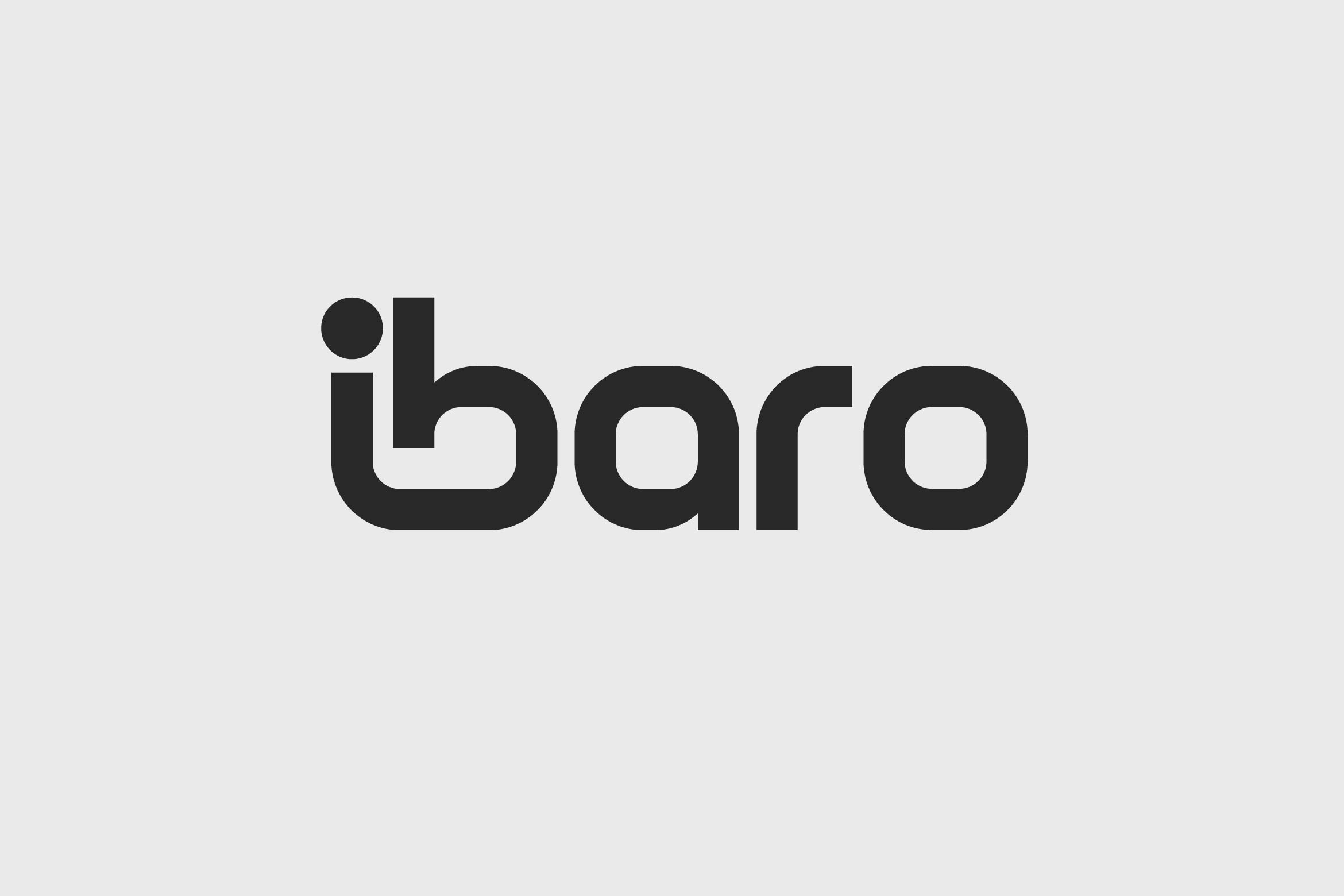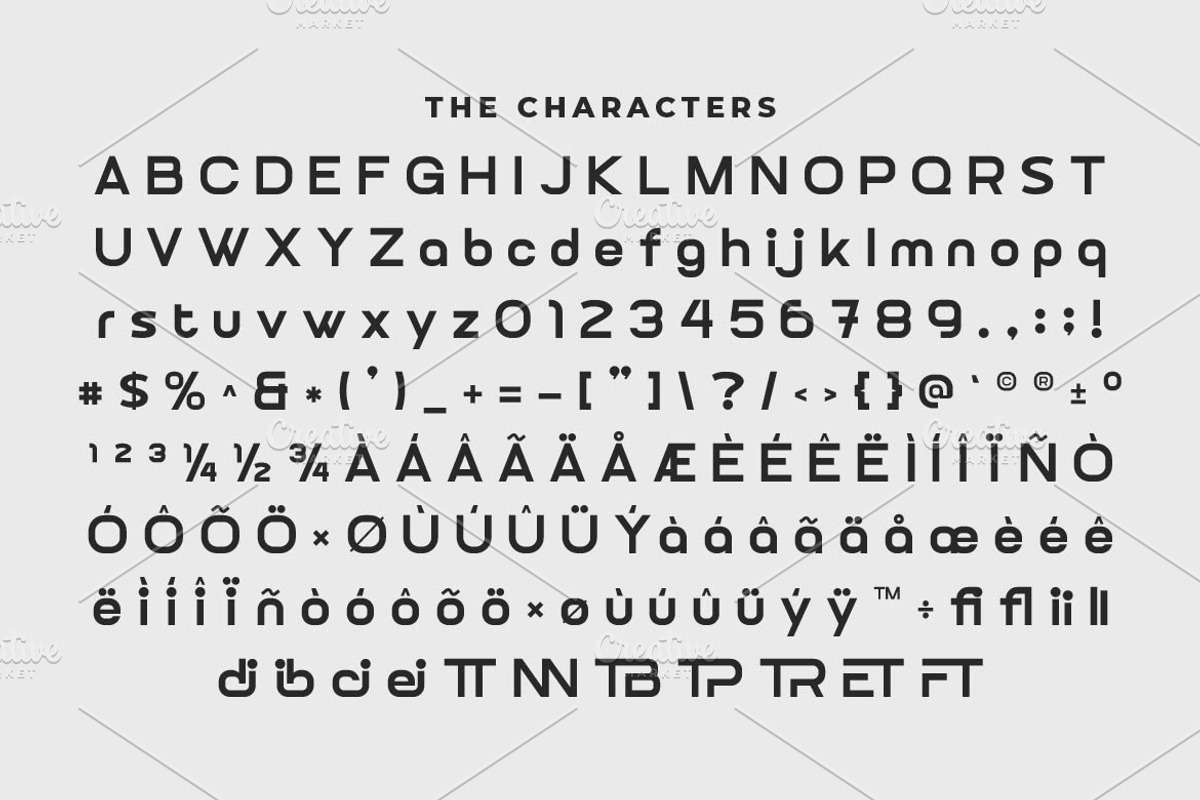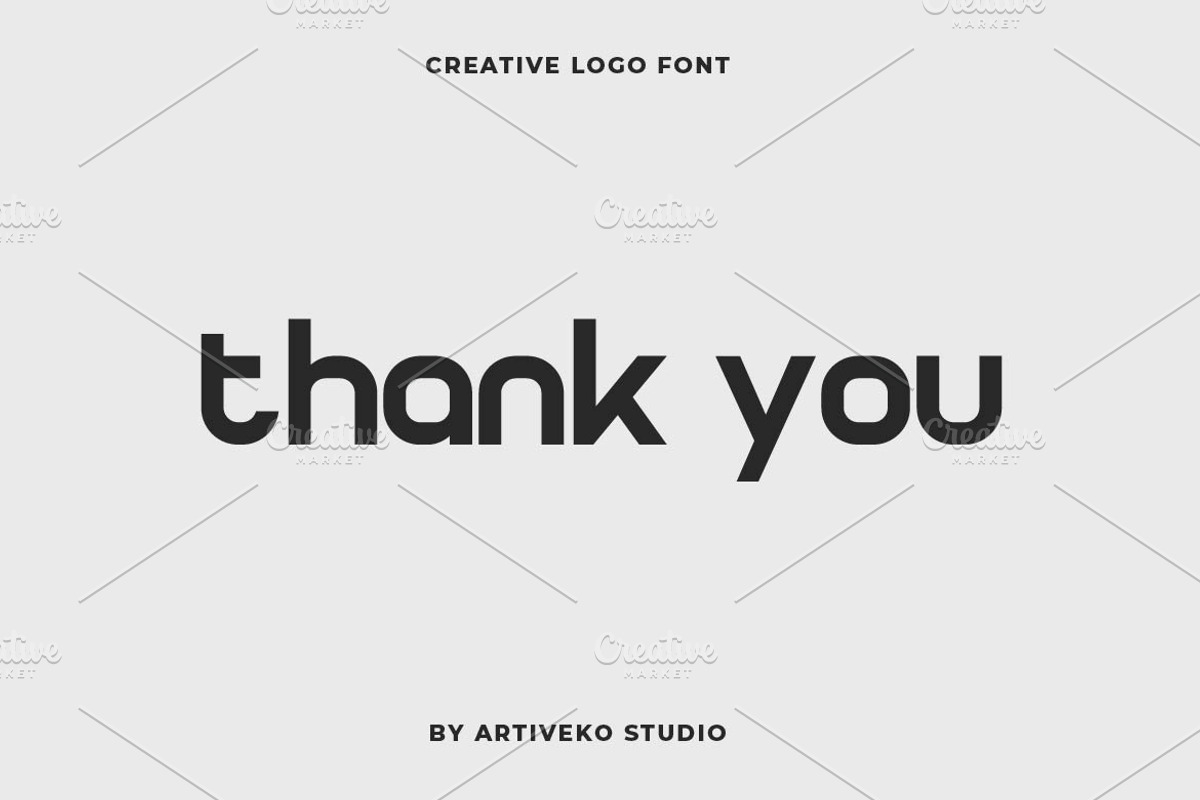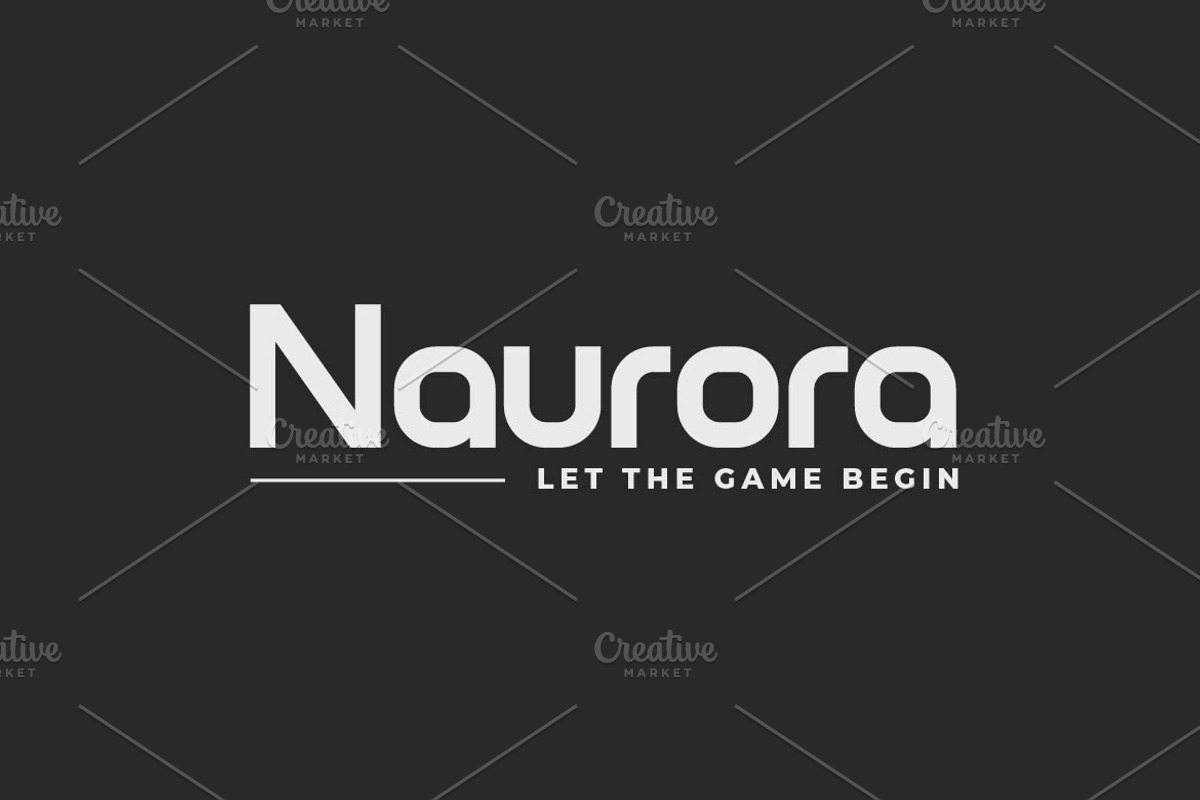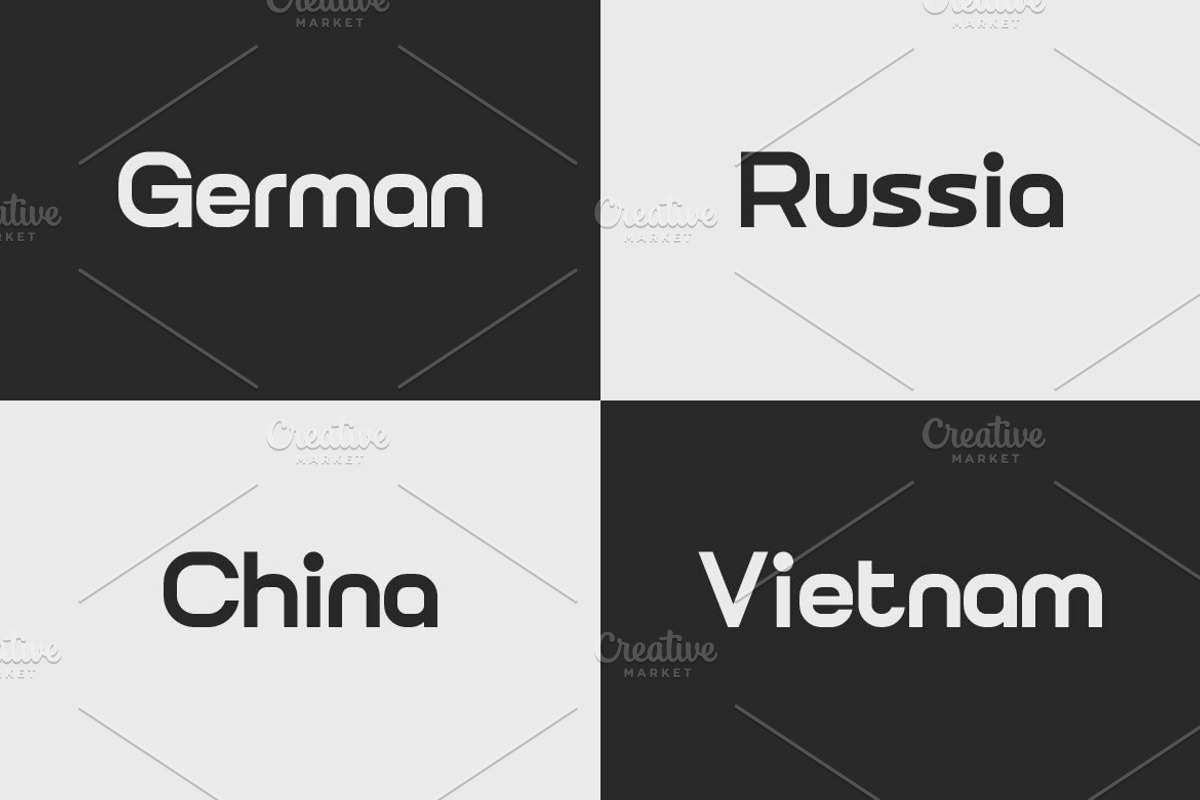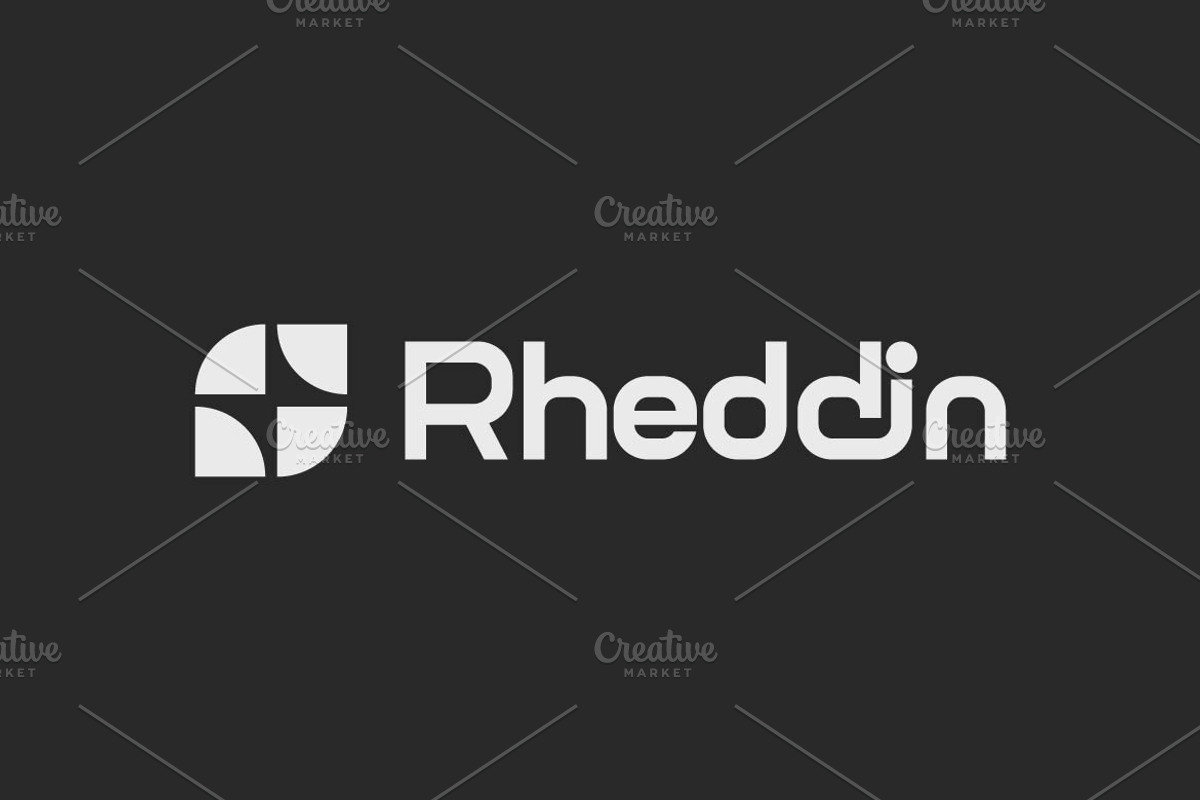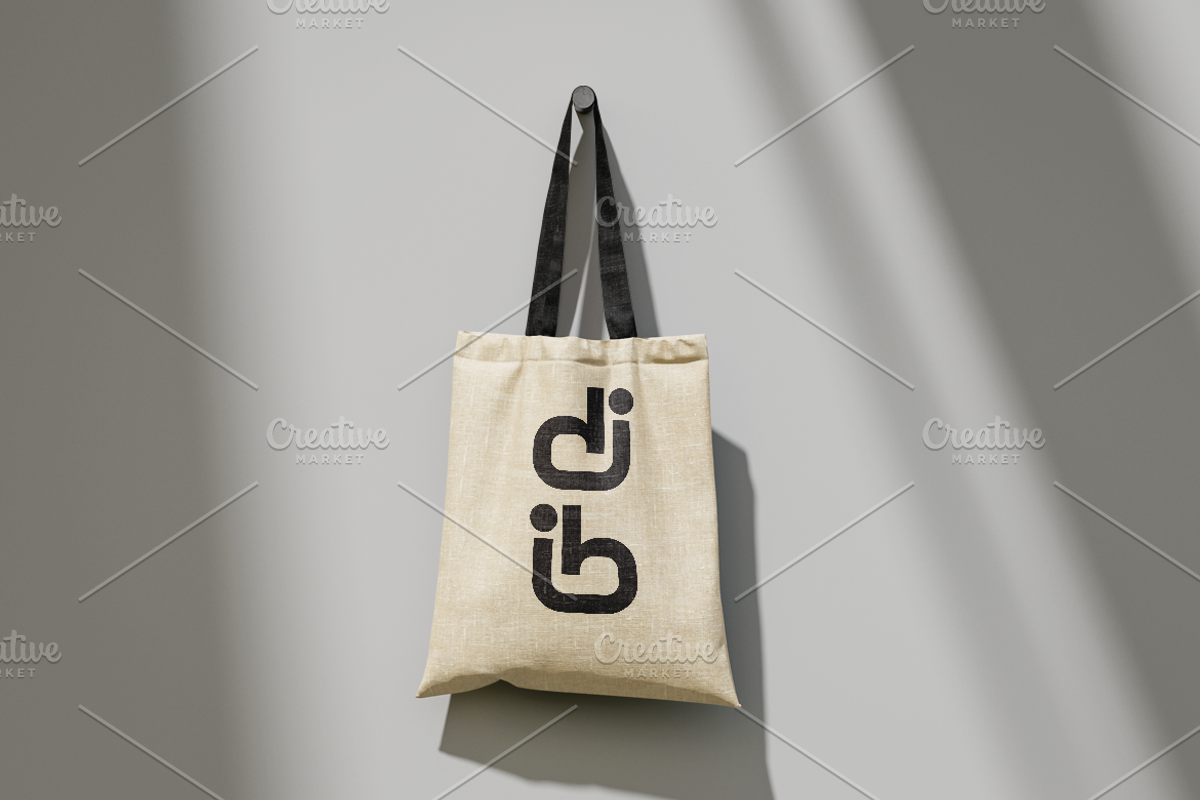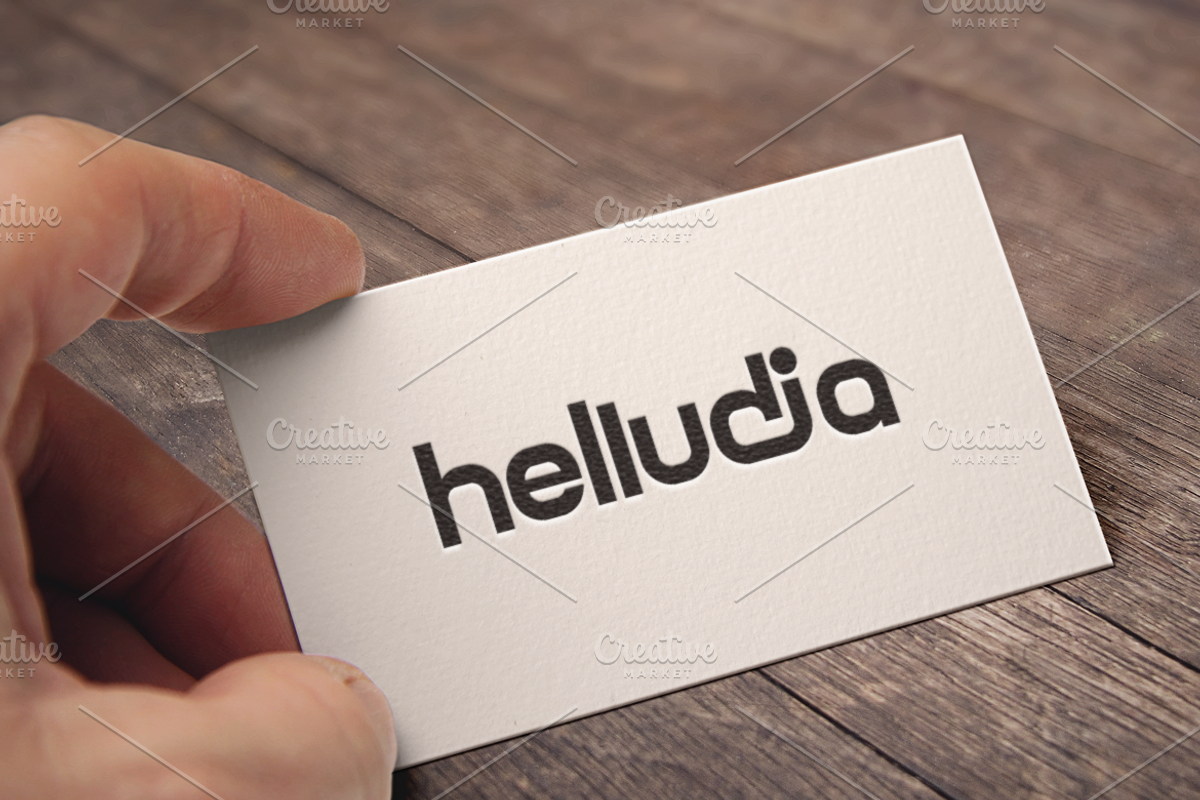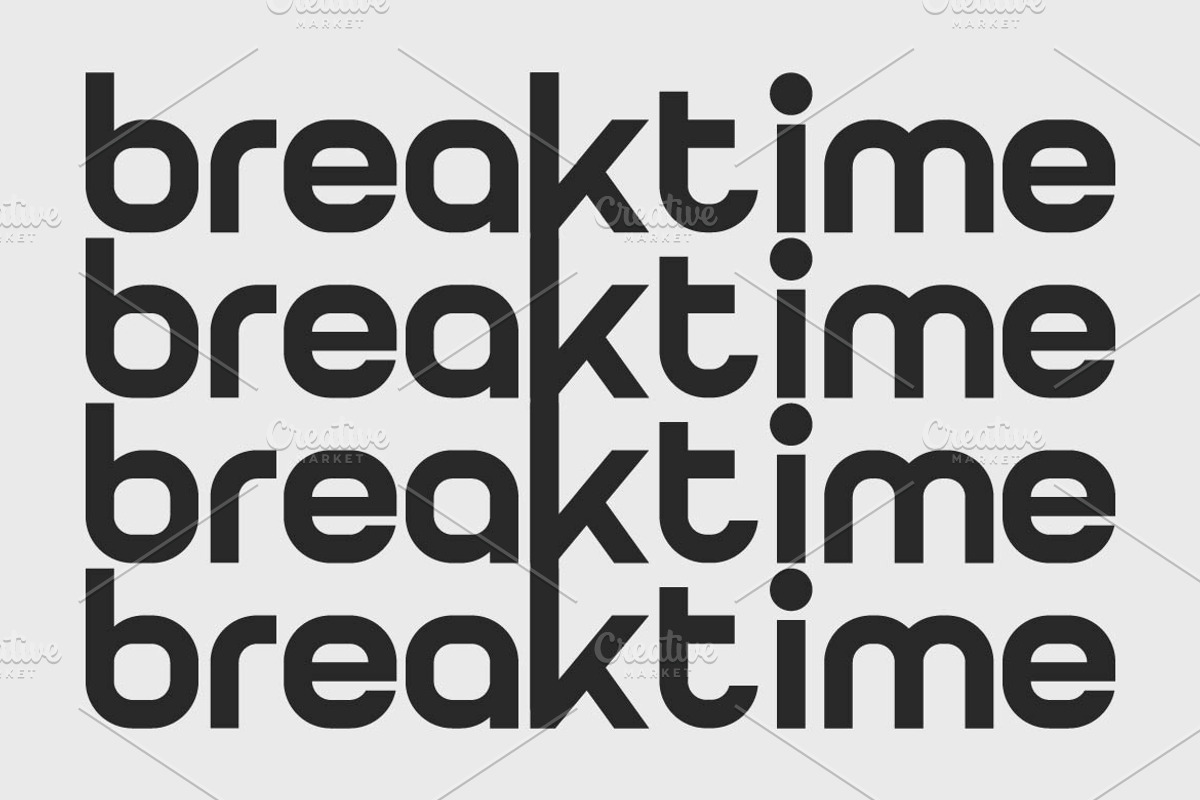
Ibaro Logo Font
Ibaro is a creative logo font designed with unique and stylish letterforms that make a strong visual statement. Perfect for branding, logotypes, packaging, and modern design projects, Ibaro blends innovation with readability. Featuring multilingual support, ligatures, and alternates, this versatile typeface ensures a distinctive and professional look, making it an excellent choice for designers seeking a bold and memorable identity.